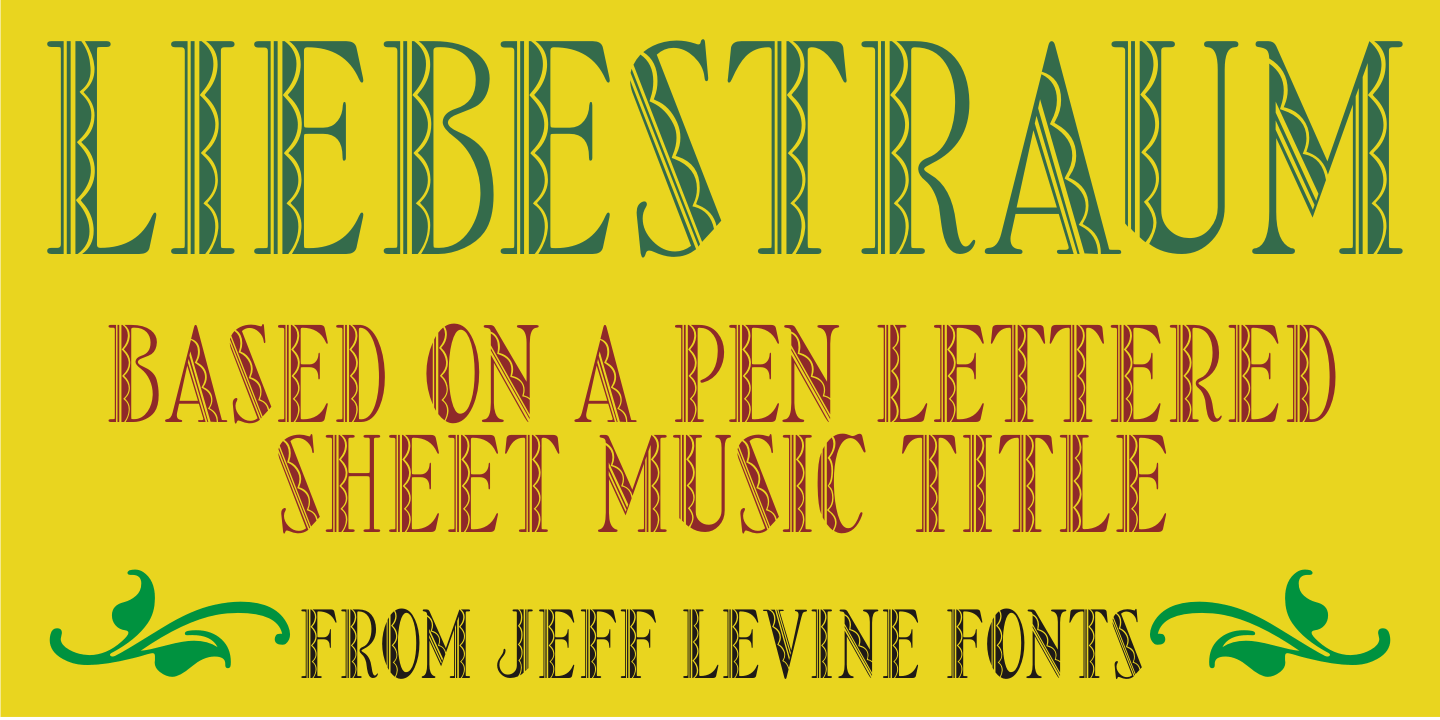
Liebestraum
A Liebestraum, in German is a 'dream of love” or 'love dream”.
Based on the ornate sheet music title from a 1920s edition of Franz Liszt's composition, Liebestraum JNL captures and preserves the unique look and feel of this pen-on-paper lettering.
Liebestraum JNL Regular by Jeff Levine Fonts